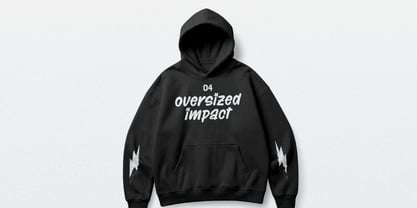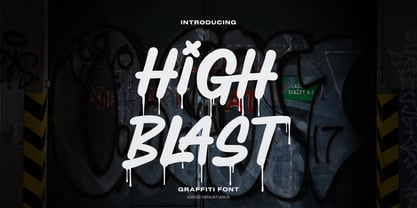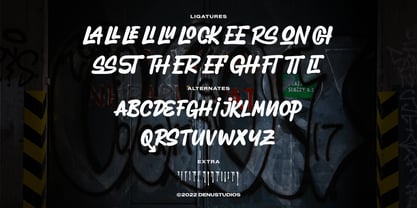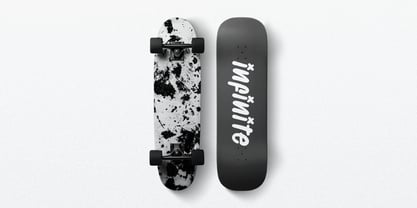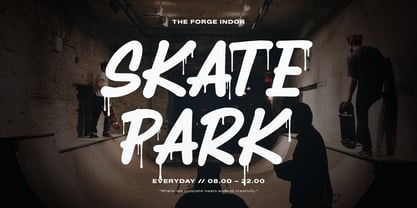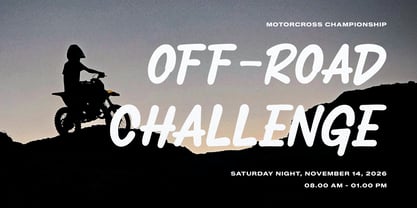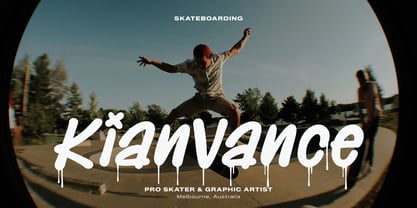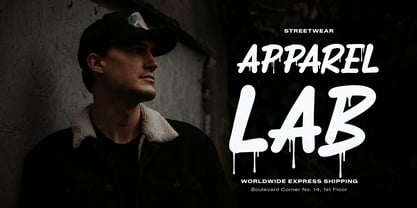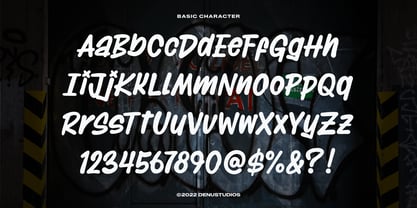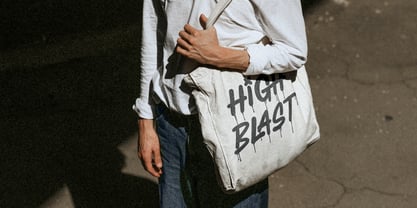
High Blast
High Blast | Graffiti Font, from Denustudios, suitable for any projects such as: logos, branding projects, homeware designs, product packaging, mugs, quotes, posters, shopping bags, t-shirts, book covers, name card, invitation cards, greeting cards, label, photography, watermark, special events, and all your other lovely projects that need Graffiti a taste.